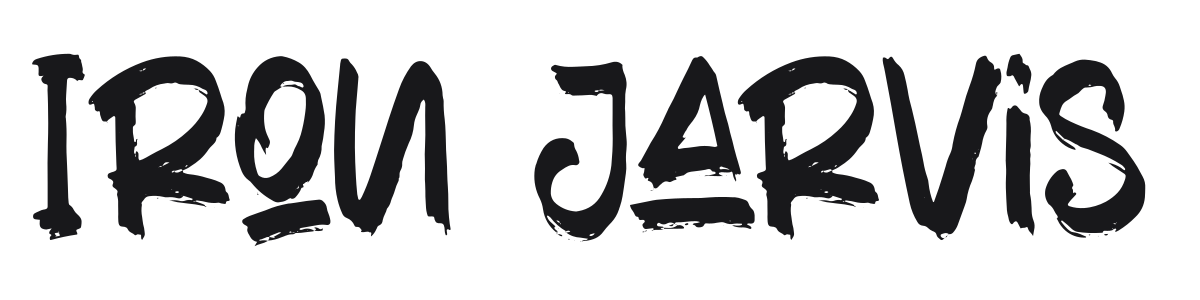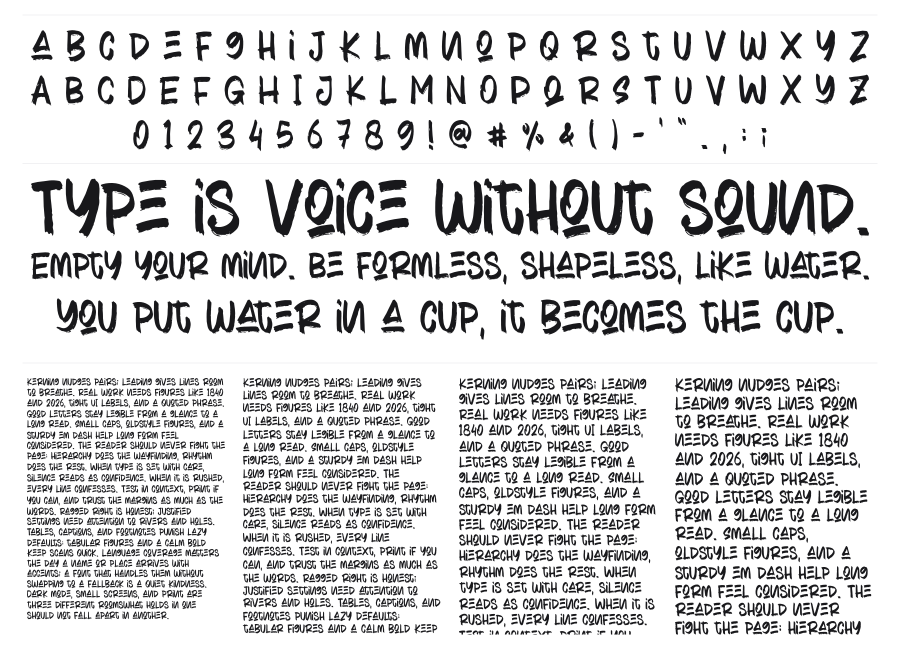
Iron Jarvis
Iron Jarvis is a bold, all-caps brush font with heavily textured strokes that look dragged straight from a paint-loaded brush. The rough bristle marks and ink breaks give it an authentically hand-painted quality that no clean digital brush can fake. It fits naturally in streetwear branding, concert posters, and anything that needs raw visual energy.